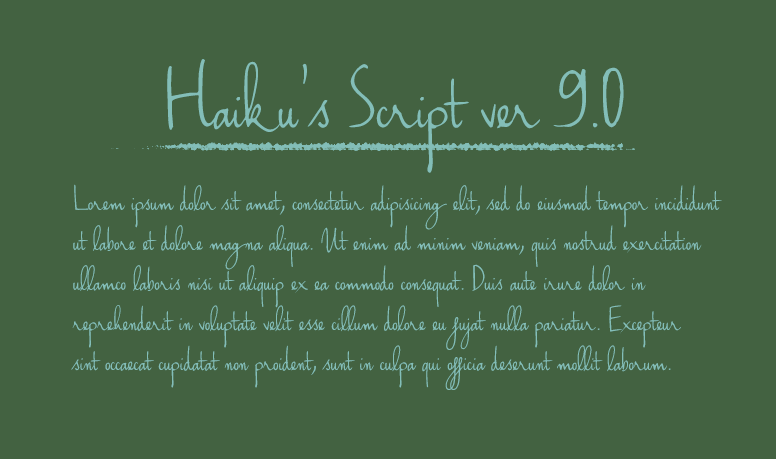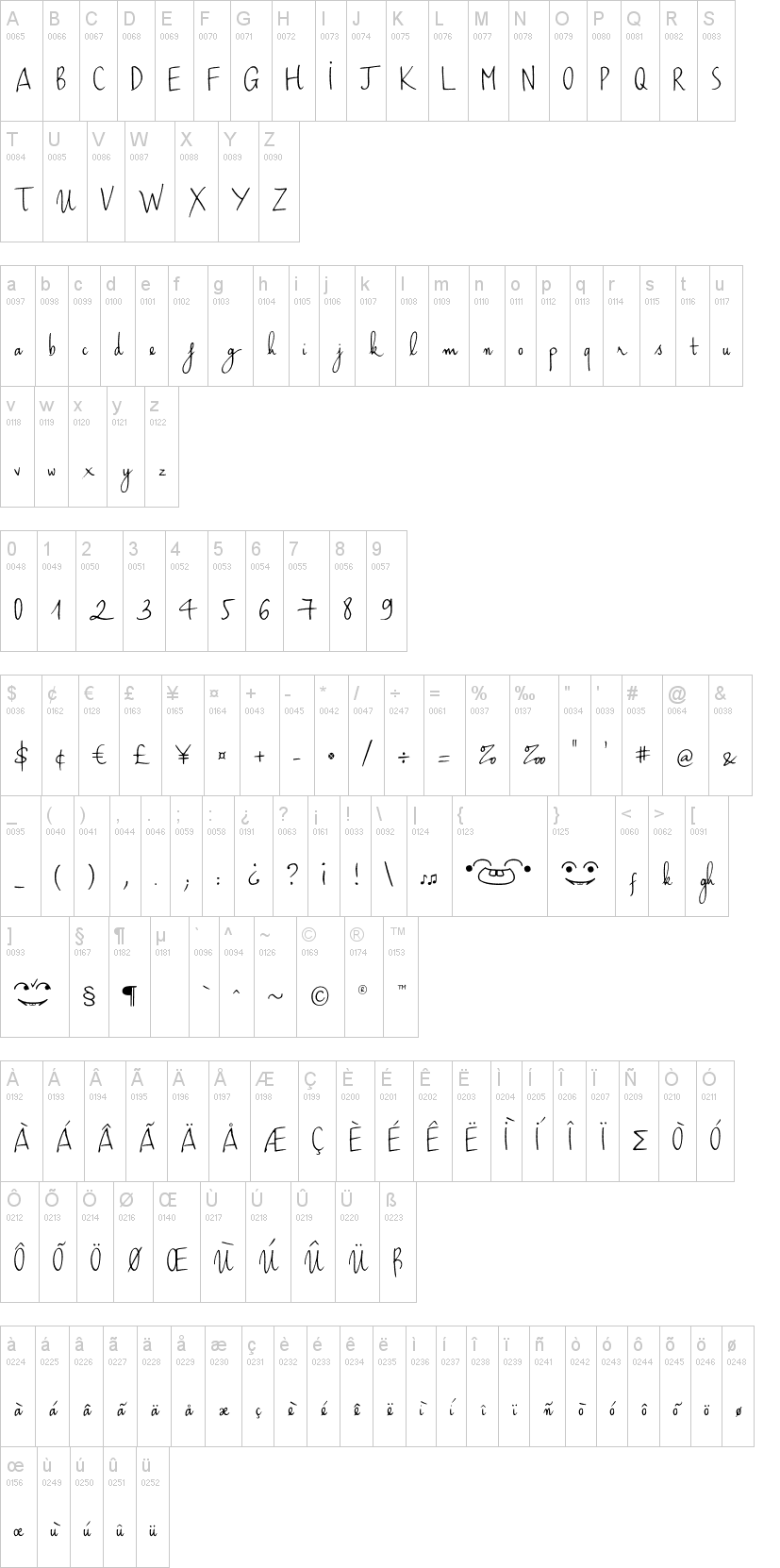
Haiku's Script version 09 Bold.ttfNote of the author*Hello everyone~ Latest version 9.0 now with a lot of changes, especially two new shapes of "f", new "w", thinner numbers, etc.*